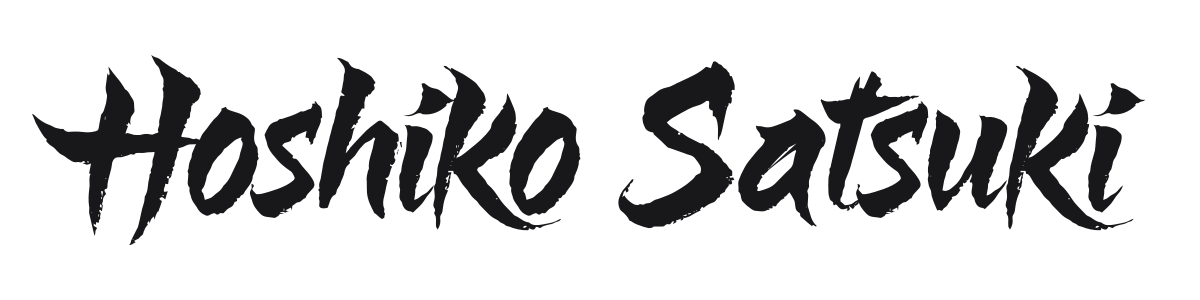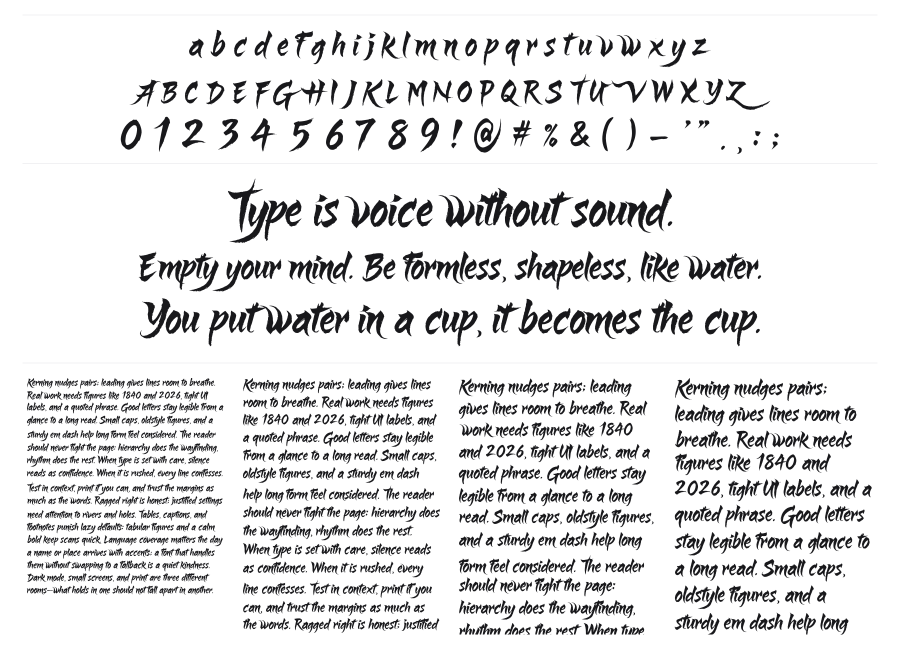
Hoshiko Satsuki
Hoshiko Satsuki is a bold brush script drawing on East Asian calligraphic ink traditions, with heavy textured strokes and dramatic hairline pulls. The bristle drag and ink-break textures give each character a raw, handcrafted intensity that sits somewhere between sumi-e painting and Western grunge lettering. It commands attention at large sizes on posters, apparel, and anywhere attitude matters.